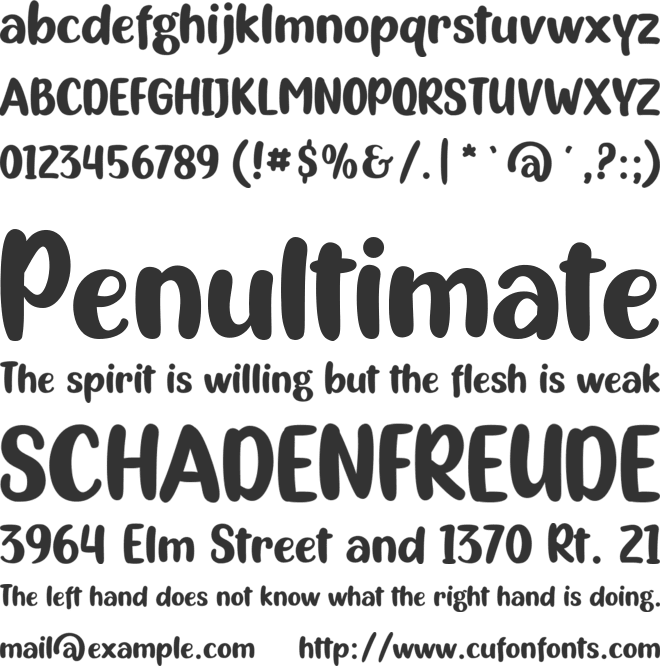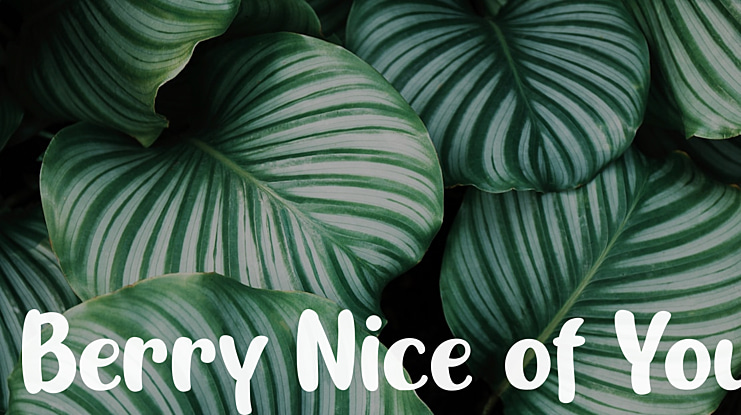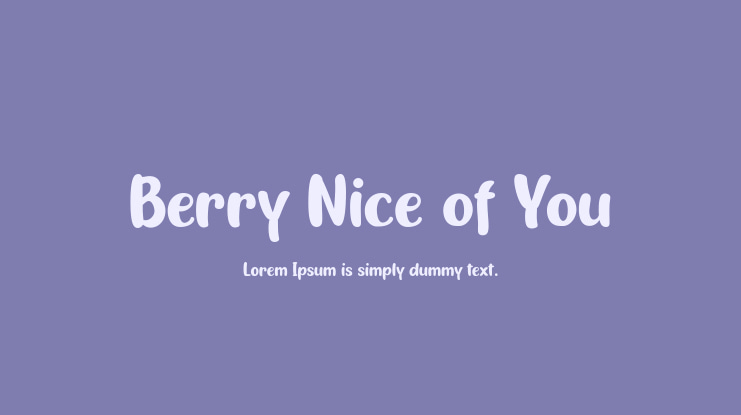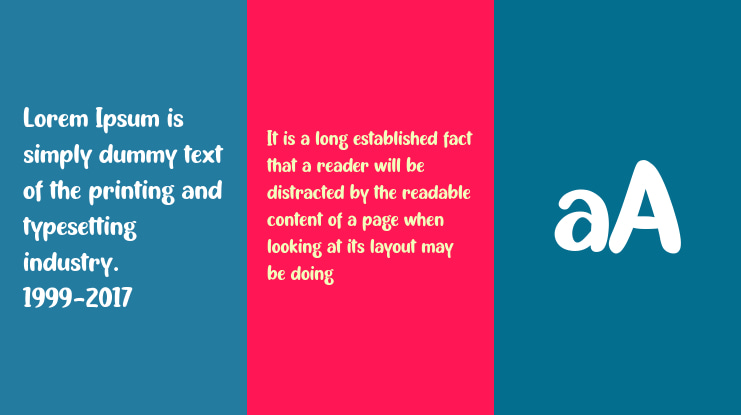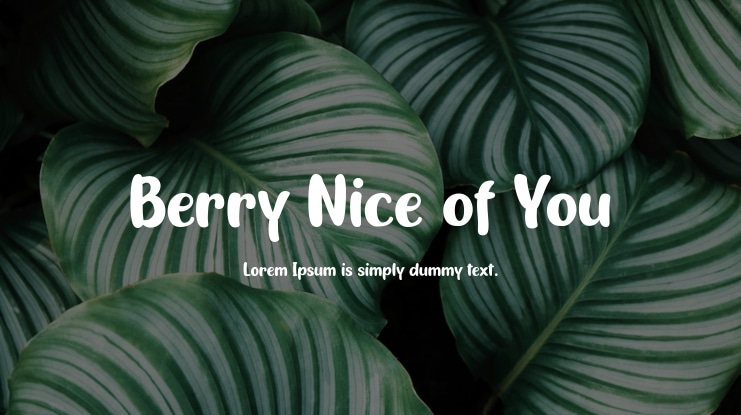
Berry Nice of You Font
Berry Nice of You is an enjoyable and amiable handwritten typeface. Whether you're utilizing it for creative projects, digital artwork, professional presentations, or crafting personalized cards, this font possesses the ability to become your preferred choice, perfect for any occasion!